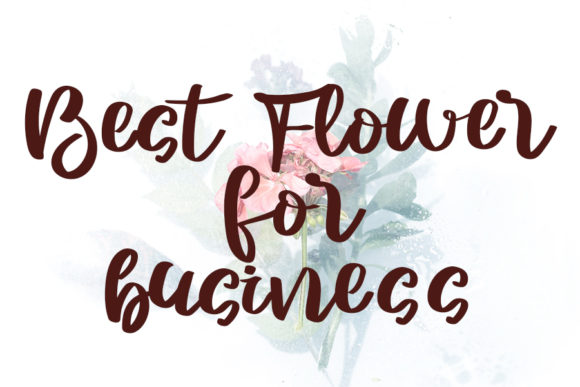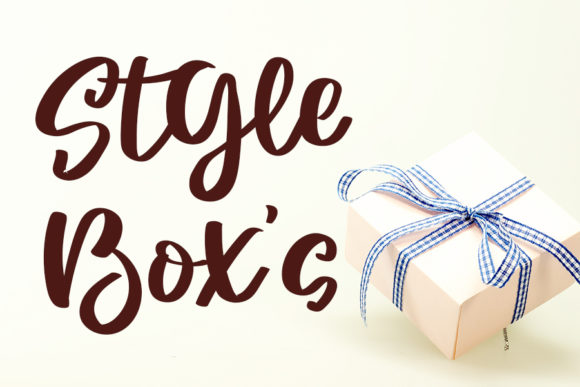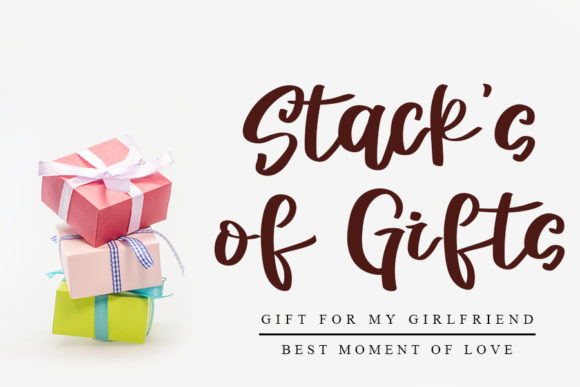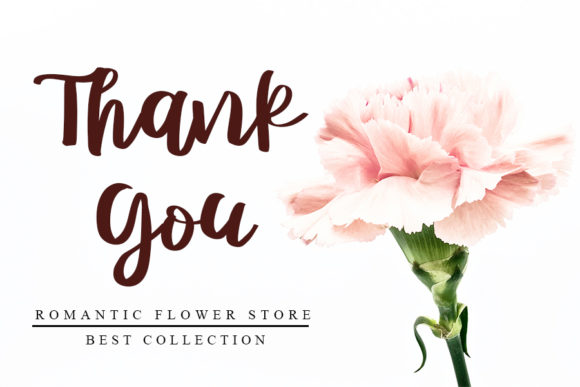
Introduction to Shashimie Font
Have you ever found yourself in a creative flow, where ideas pour in, and your imagination runs wild? You’re browsing through design resources, searching for the perfect font to elevate your project, and suddenly, you stumble upon a hidden gem – the Shashimie Font. Its elegant touch and distinct style captivate your attention, and you can’t help but fall in love with it.
Key Features of Shashimie Font
- High-quality, unique font design perfect for creative projects and design resources.
- Designed to provide a clean and modern aesthetic for a wide range of creative projects.
- Supports a wide range of languages and characters, making it a versatile design resource.
Honest Review: Shashimie Font
As a designer, I’m always on the lookout for high-quality design resources that can elevate my creative projects. The Shashimie Font caught my eye due to its unique and modern aesthetic. After trying it out, here’s my honest review.
- ✨ Unique and modern design that’s perfect for creative projects
- ✨ High-quality font that’s suitable for both print and digital designs
- ✨ Transparent background, allowing for seamless integration with other design elements
- ⚠️ Limited character set, which may not be suitable for lengthy text-based projects
- ⚠️ Not as versatile as some other fonts, which may limit its use in certain design scenarios
Overall, I’m impressed with the Shashimie Font, and I think it’s a great addition to any designer’s toolkit. While it may have some limitations, its unique design and high quality make it a great choice for creative projects that require a modern and stylish touch.
Tips for Getting the Most Out of Shashimie Font
For the best results, use Shashimie Font in a creative project where its unique style can shine. Experiment with different font sizes, colors, and styles to create a visually appealing design. You can also use it in combination with other fonts to add depth and interest to your design.
Shashimie Font is ideal for use in graphic design, digital art, and creative projects. It’s also great for making invitations, posters, and social media graphics. With its high-quality design and transparent background, it’s the perfect font for any creative project.